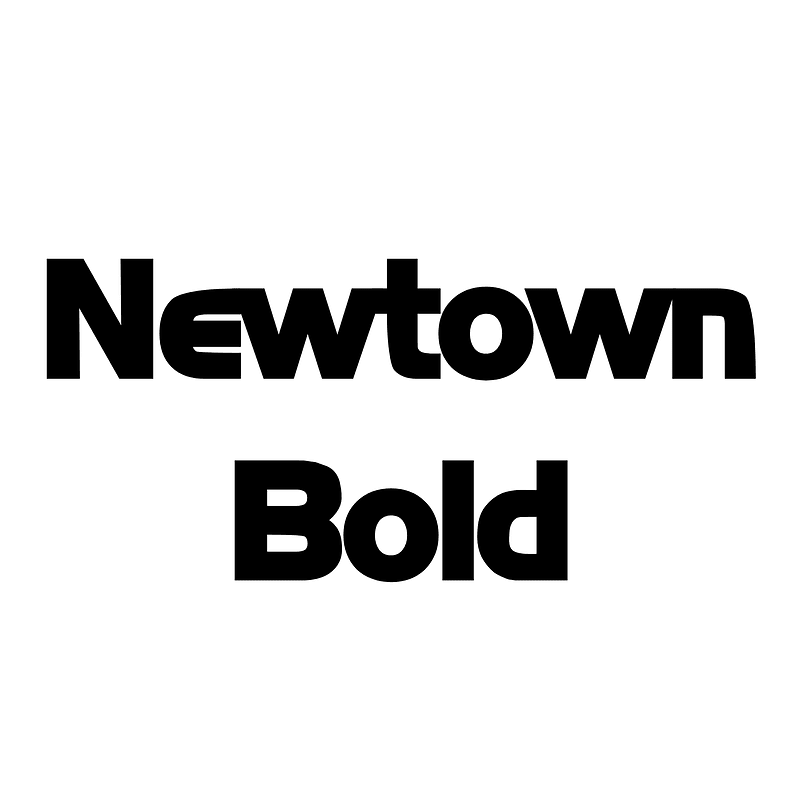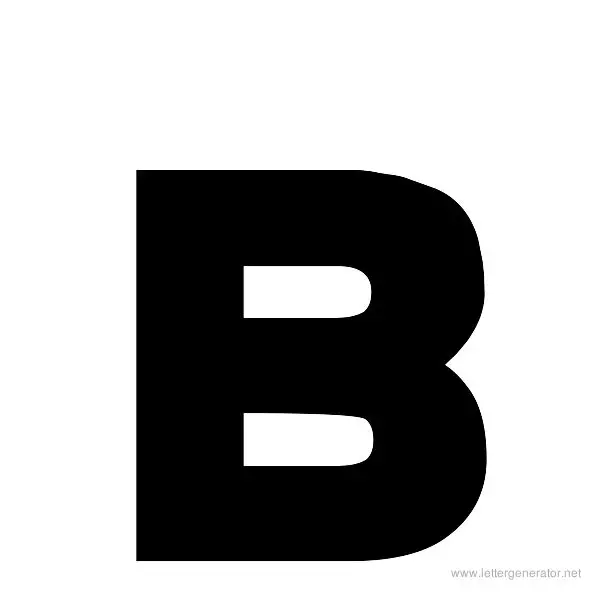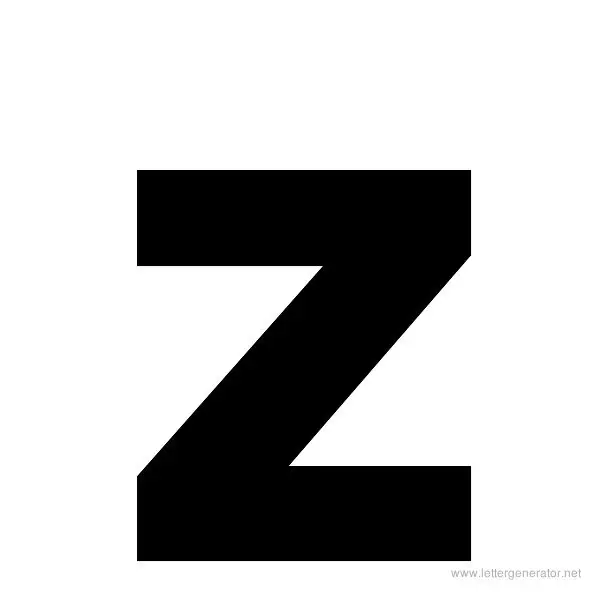
Discover the New Town Font: Elevate Design with Modern Typography
Explore the innovative new town font that blends tradition with modern style, perfect for brands seeking fresh, legible, and visually engaging typography.
In a world where visual identity defines brand success, the new town font emerges as a bold yet refined choice—bridging classic appeal with contemporary clarity to elevate any design project.
The New Town Font: A Modern Typographic Breakthrough
Designed to balance readability and aesthetic appeal, the new town font integrates clean lines with subtle humanist curves, making it ideal for both digital interfaces and print. Its modular structure supports versatile use across logos, websites, and marketing materials, ensuring consistent brand messaging without compromise.
Crafted for Clarity and Character
Built with legibility at its core, the new town font maintains excellent x-height and open letter spacing, enhancing scannability in fast-paced environments. Its distinctive yet understated style sets it apart, offering a fresh alternative to generic sans-serif typefaces while preserving timeless professionalism.
Driving Design Innovation Across Industries
From lifestyle brands to tech startups, the new town font empowers businesses to craft distinct visual identities. Its adaptability across platforms—from mobile apps to signage—makes it a future-proof investment for any organization aiming to stay visually relevant in competitive markets.
The new town font isn’t just a typeface—it’s a strategic design asset that enhances communication and builds lasting brand recognition. Embrace this innovative typography today to transform your visual storytelling and stand out in a saturated digital landscape.